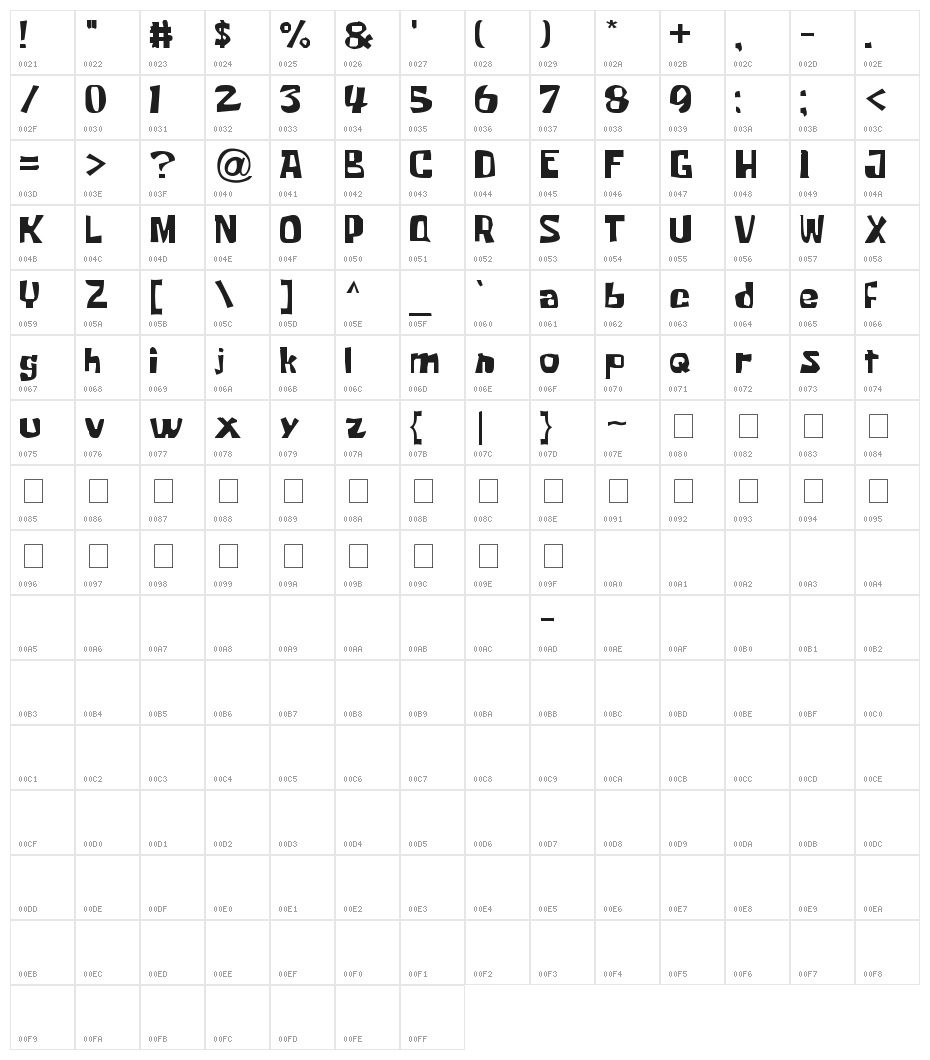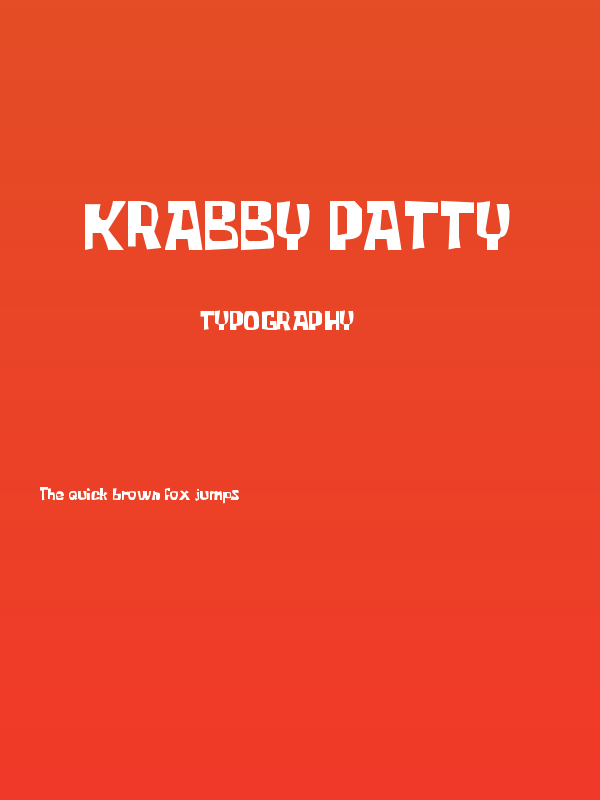
Krabby Patty Font
Krabby Patty Description
This font features a bold, playful design with irregular, chunky letterforms that give it a whimsical and energetic appearance. The characters have a hand-drawn quality, with uneven edges and varying stroke widths that add to its quirky charm. The uppercase and lowercase letters maintain a consistent style, while the numerals and special characters complement the overall aesthetic. This font's unique style makes it stand out, offering a fun and informal vibe.
Font by Seil
| Overall Style | Playful, Quirky |